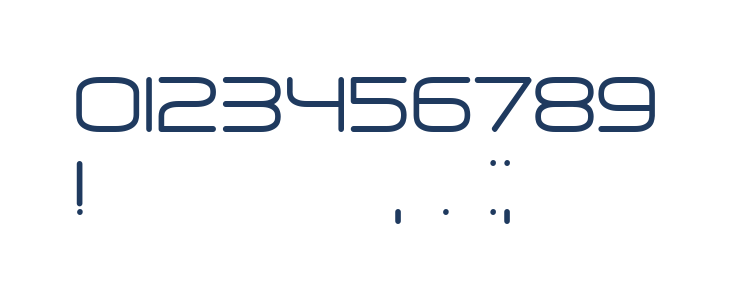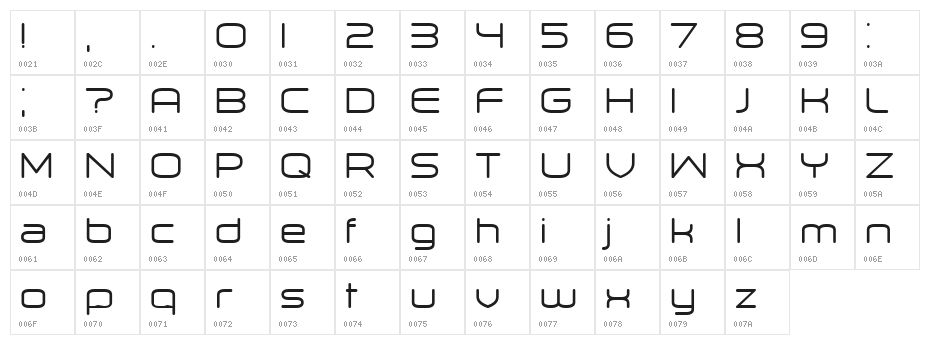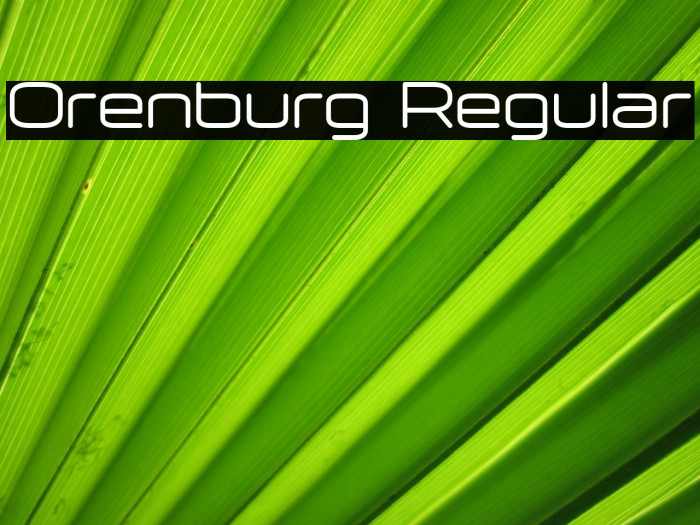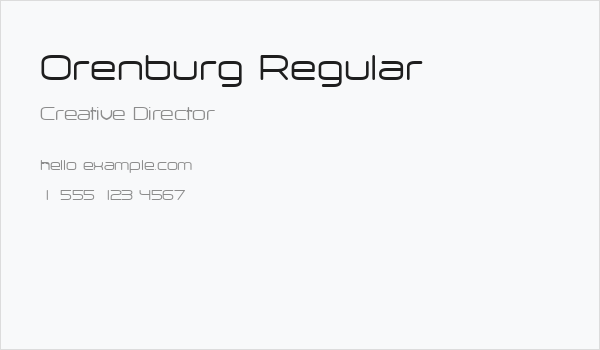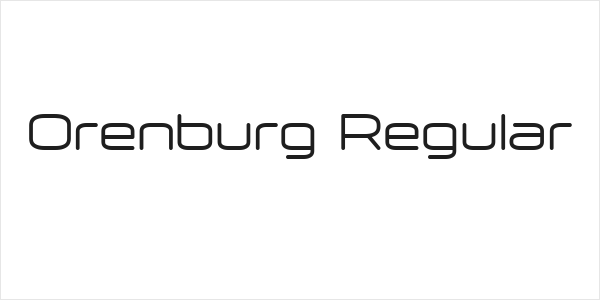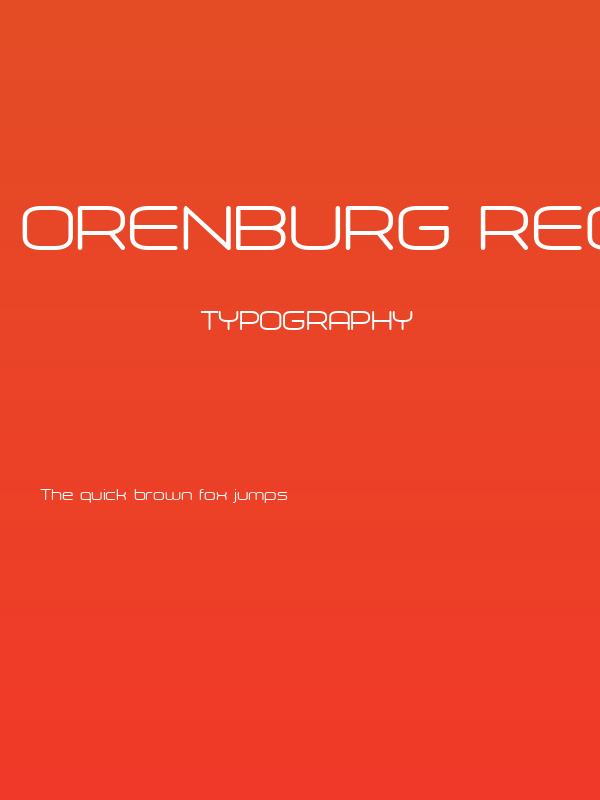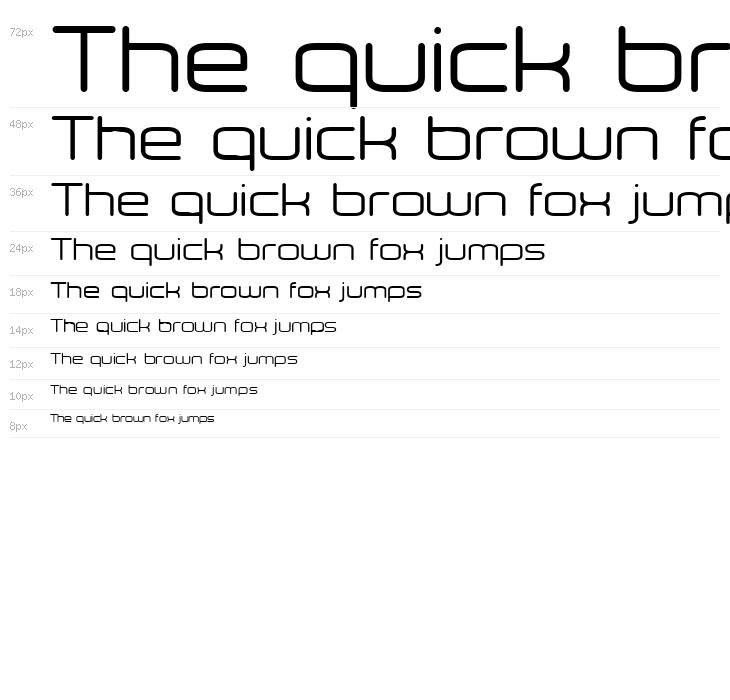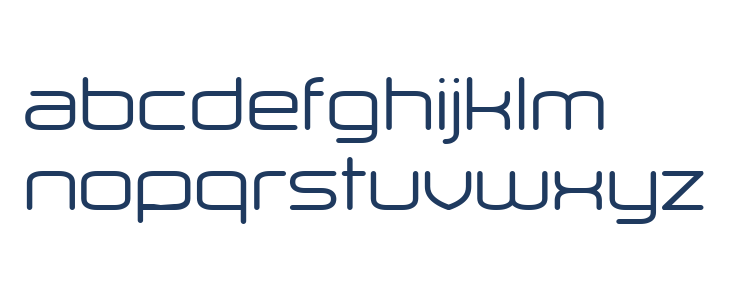
Orenburg Regular Font
Orenburg Regular Description
This font features a sleek, modern design with rounded edges and a geometric structure. The characters are evenly spaced, providing a clean and organized appearance. The uppercase and lowercase letters maintain a consistent style, with a slight variation in height and width to distinguish them. The numerals are clear and easy to read, matching the overall aesthetic of the font. Special characters are minimalistic, complementing the font's streamlined look. This font is ideal for projects that require a contemporary and professional feel.
| Proposed Projects | Ideal for tech branding, modern web design, and minimalist posters. |